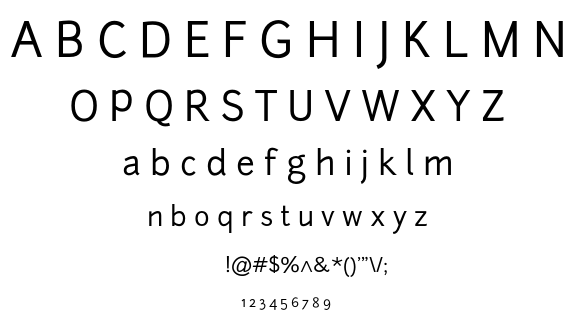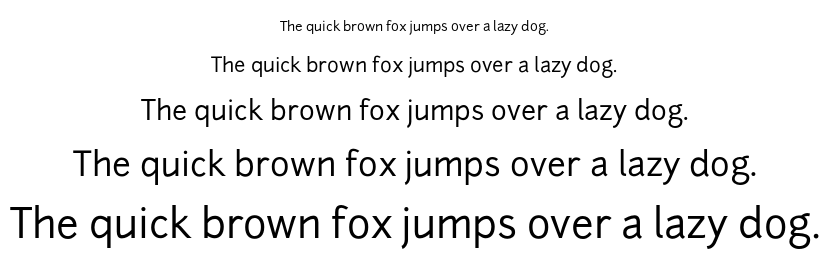
Junction is a a humanist sans-serif, and the first open-source type project started by The League of Moveable Type. We’re expanding Junction to include additional non-English characters. We also plan to expand Junction to include different weights, to make a complete family.